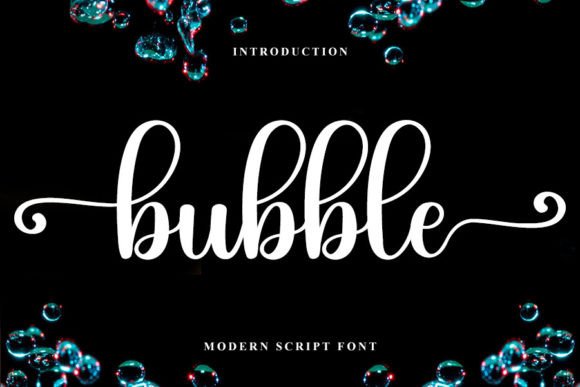
Bubble Font: Elevate Your Designs with a Casual yet Elegant Script Font
Are you on the hunt for a font that exudes elegance and sophistication, yet is casual and approachable? Look no further than the Bubble font! This beautiful script font is perfect for designers and crafters who want to add a touch of whimsy and romance to their projects. In this article, we’ll dive into the world of Bubble font, exploring its features, uses, and benefits.
What is Bubble Font?
Bubble is a stunning script font that boasts an incredibly versatile style. Its casual yet elegant design makes it perfect for a wide range of projects, from wedding invitations and stationary art to social media posts and more. The font’s unique charm is sure to capture the hearts of designers and crafters alike, making it a must-have in any font collection.
Key Features of Bubble Font
- Versatile Style: The Bubble font is incredibly versatile, making it perfect for a wide range of projects. Whether you’re creating wedding invitations, social media posts, or stationary art, this font is sure to impress.
- Elegant and Casual: The Bubble font strikes the perfect balance between elegance and casualness. Its sophisticated design makes it perfect for formal events, while its approachable style ensures that it remains accessible to a wide audience.
Uses for Bubble Font
The Bubble font is perfect for a wide range of projects, including:
- Wedding Invitations: Create stunning wedding invitations that set the tone for a beautiful and elegant celebration.
- Stationary Art: Add a touch of whimsy and romance to your stationary art with the Bubble font.
- Social Media Posts: Elevate your social media posts with the Bubble font’s elegant and casual design.
- Branding and Packaging: Use the Bubble font to create beautiful branding and packaging that stands out from the crowd.
Benefits of Using Bubble Font
So why choose the Bubble font for your next project? Here are just a few benefits of using this stunning script font:
- Easy to Use: The Bubble font is incredibly easy to use, even for designers and crafters who are new to font editing software.
- Highly Versatile: The Bubble font can be used for a wide range of projects, making it a valuable addition to any font collection.
- Unique and Eye-Catching: The Bubble font’s unique design ensures that your projects will stand out from the crowd and capture the attention of your audience.
Tips for Getting the Most Out of Bubble Font
To get the most out of the Bubble font, here are a few tips to keep in mind:
- Experiment with Different Sizes: The Bubble font looks great in a variety of sizes, so don’t be afraid to experiment and find the perfect size for your project.
- Pair with Other Fonts: The Bubble font pairs beautifully with other fonts, so try combining it with different fonts to create a unique and eye-catching design.
- Use Swashes and Glyphs: The Bubble font’s PUA encoding makes it easy to access a wide range of swashes and glyphs. Don’t be afraid to get creative and use these features to add a personal touch to your designs.